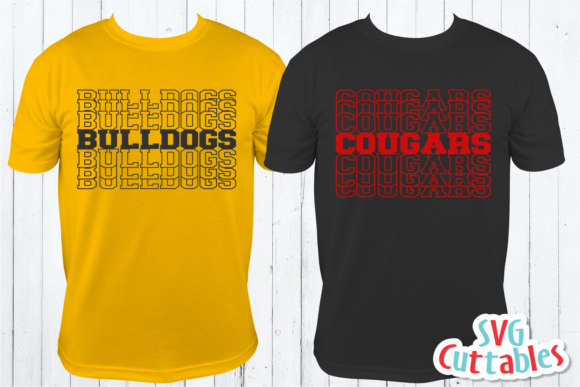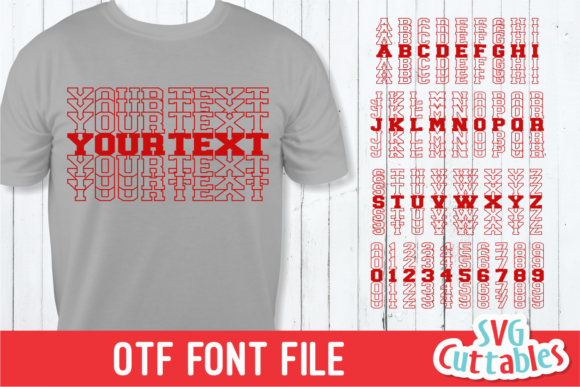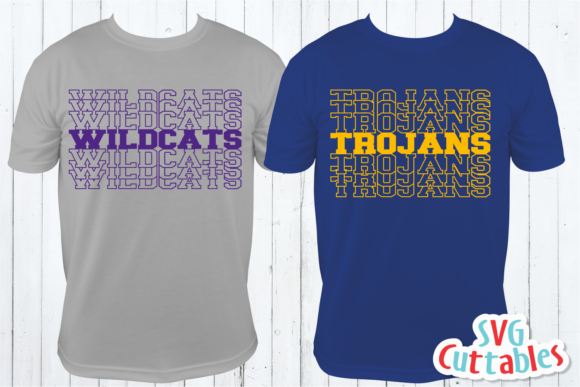
JP Sport Stacked Font: A Bold and Assertive Slab Serif
JP Sport Stacked Font is a striking slab serif typeface that combines boldness with an incredibly assertive style. This versatile font has the potential to become your go-to choice for a wide range of creative projects.
Key Features of JP Sport Stacked Font
- Bold Design: Features strong, eye-catching letterforms that command attention.
- Assertive Style: Offers a confident and impactful look suitable for various applications.
- Slab Serif Structure: Incorporates the characteristic thick, rectangular serifs typical of slab serif fonts.
- Versatile Application: Suitable for a wide range of projects, from crafts to digital design.
- Go-To Potential: Designed to be a favorite choice for various occasions and design needs.
Ideal Uses for JP Sport Stacked Font
JP Sport Stacked Font’s unique characteristics make it particularly well-suited for:
- Craft projects requiring a bold touch
- Digital designs and presentations
- Greeting cards with a strong visual impact
- Sports-related branding and merchandise
- Headlines and titles in various media
When incorporating JP Sport Stacked Font into your designs, consider these tips:
- Use for headlines or short blocks of text to maximize its bold and assertive impact
- Experiment with different sizes to highlight the font’s unique details
- Consider pairing with simpler sans-serif fonts for body text to create contrast
- Take advantage of its versatility across various themes and styles in your projects
JP Sport Stacked Font is an excellent choice for designers looking to add a bold and assertive slab serif font to their typographic toolkit. Its ability to enhance various design projects makes it stand out in the world of typography. Whether you’re working on logo designs for sports teams, creating layouts for greeting cards, or developing content that requires a strong visual presence, JP Sport Stacked Font offers the perfect blend of boldness and versatility.
Furthermore, adding JP Sport Stacked Font to your creative projects can elevate your designs with its bold and assertive style. From eye-catching headlines to impactful presentations, this font provides the tools to create memorable typography that resonates with audiences seeking a strong and confident aesthetic. It’s versatile enough to be used in various contexts, from vintage-inspired designs with a modern twist to more playful layouts that need a touch of boldness.
Whether you’re creating a dynamic and energetic atmosphere for sports-related content or aiming for a more impactful and assertive mood in your designs, JP Sport Stacked Font can adapt to your needs. Its flexibility allows it to work well in both bold, modern projects and contemporary designs that require a strong typographic presence. For those looking to add a touch of confidence with a bold feel, this font can even enhance seasonal creations with a unique, assertive twist.